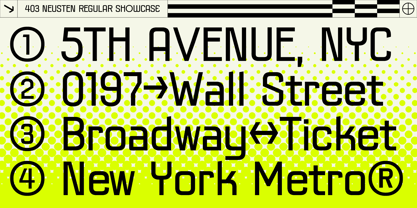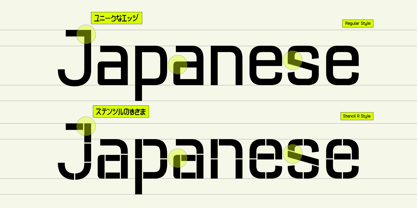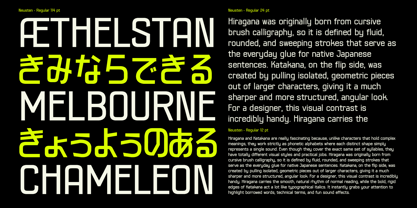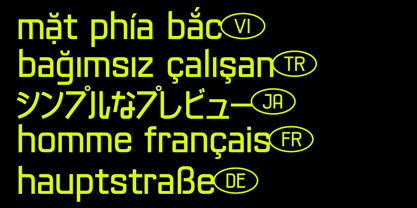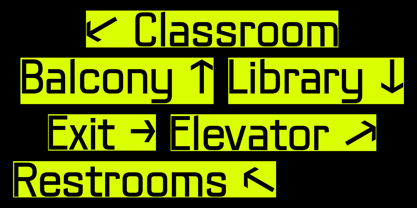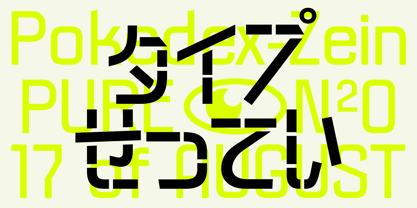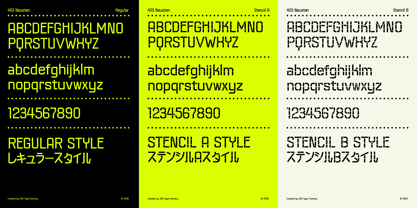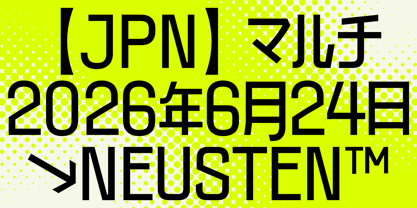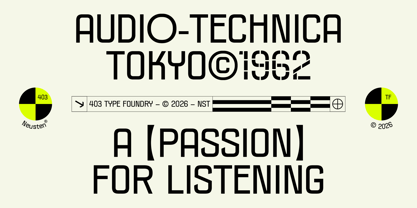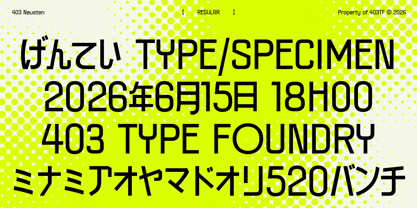
403 Neusten
Command attention and anchor your layouts with 403 Neusten, a high-impact display typeface engineered for modern technical layouts and digital landscapes. Built to deliver absolute visual authority, this typeface effortlessly bridges the gap between raw industrial mechanics and refined contemporary graphic design. Whether you are constructing a cutting edge brand identity or configuring an informational signage system, 403 Neusten offers the precise aesthetic muscle and expansive linguistic versatility required to make your message entirely unmissable.
403 Neusten is grounded in a rigorous, condensed geometric structure characterized by its tall x-height, squared-off curves, and utilitarian rhythm. The design philosophy channels a heavy industrial brutalist aesthetic, stripping away decorative clutter to emphasize structure, clarity, and systematic precision. Its technical anatomy radiates an ultra-modern, tactical energy that is heavily inspired by technical specs, wayfinding systems, and urban architecture. This mechanical rigidity is beautifully balanced by the fluid, sweeping geometry of its integrated Japanese Hiragana and Katakana characters, resulting in a striking cross-cultural visual harmony where sharp industrial lines meet expressive eastern typography.
403 Neusten is an indispensable tool for branding professionals, UI/UX teams, packaging designers, and independent creators working within merch, music, and high-utility design niches. The typeface thrives in high-visibility contexts, making it exceptionally well-suited for striking editorial headlines, technical product labels, merchandise, and modern informational wayfinding systems. While it dominates the page as a bold display face at large sizes, its meticulously balanced counters and precise drawing ensure it retains exceptional legibility when scaled down to smaller blocks of technical spec text.
Feature Breakdown
• 3 Distinct Technical Styles: Includes Regular, Stencil A, and Stencil B cuts to allow for versatile, textured typographic hierarchy.
• Massive Glyph Set: Packed with 1,087 glyphs per style, providing an incredibly robust toolkit for advanced layouts.
• Global Language Support: Features extensive multi-lingual capabilities covering 341 languages worldwide, including Latin extensions and accent markers.
• Full Japanese Subsets: Features natively designed Hiragana and Katakana character sets for seamless cross-cultural design integration.
• Industrial Geometry: Engineered with a condensed, space-optimized silhouette perfect for high-impact titles and dense technical layouts.
• Cross-Platform Optimization: Fully kerned and optimized for crisp rendering across physical prints, environmental signage, and digital user interfaces.